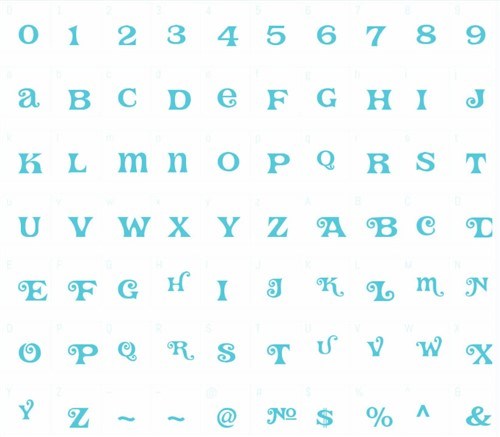
Unicorn Creatives is happy to present Topemmhat Font Embrilliance Embroidery Font - Whimsical Decorative Style - BX font machine embroidery font which has Playful and curvy, this decorative machine embroidery font is great for creating unique designs on crafting projects like pillowcases or fabric banners. Available in BX font and Embrilliance formats. included. If you would like to view more embroidery fonts and alphabets please search our embroidery fonts page.
Topemmhat Font Embrilliance Embroidery Font - Whimsical Decorative Style - BX font